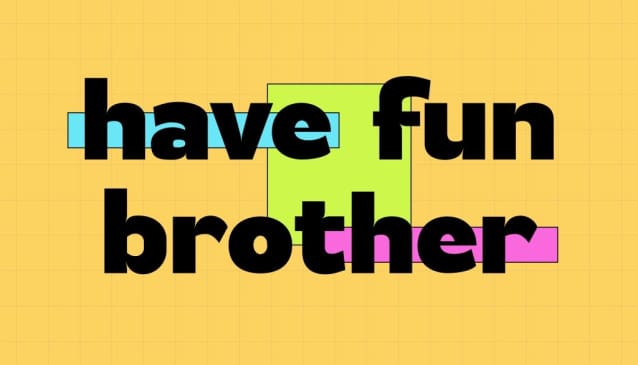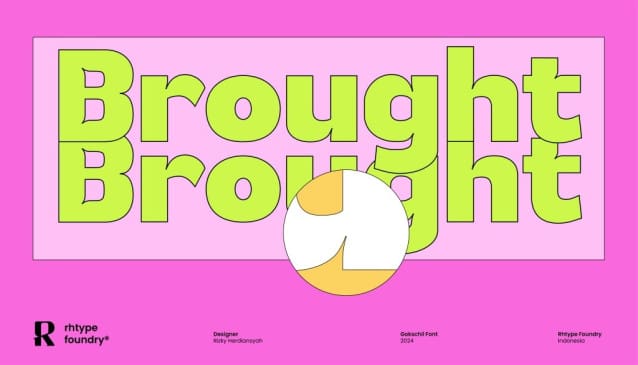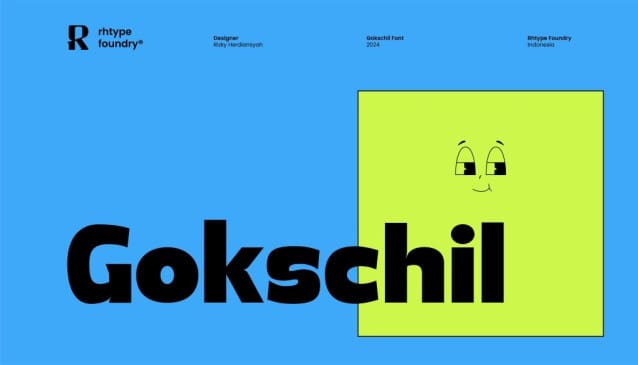
Gokschil Font is an incredibly adorable display font with its own unique characteristics. Its playful design adds a touch of whimsy to any project. Whether it’s used for headings, logos, or invitations, Gokschil stands out with its charm and distinctiveness. The best part? It’s completely free to use, as it comes with a free license.
Gokschil Font
| Classification: | Display Fonts, Sans Serif Fonts |